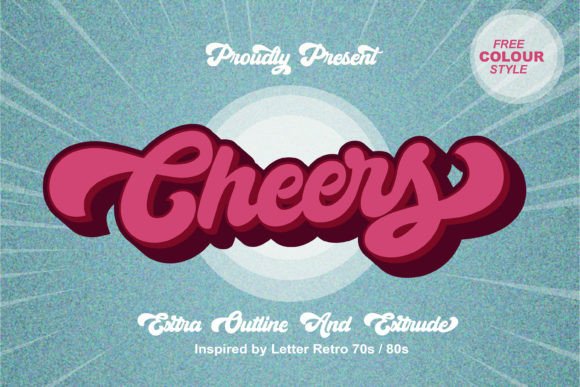
Are you looking for the perfect font to make your holiday letters stand out? Look no further than Cheers Font! Created by the talented artisco99, Cheers is a script font that will take you back to the good old days with its cool retro vibe.
With its bold and funky appearance, Cheers Font is perfect for adding a touch of vintage charm to your designs. Whether you're designing holiday cards, posters, or even t-shirts, Cheers Font will give your project that extra edge that sets it apart from the rest.
But what really sets Cheers Font apart is its PUA encoding. This means that all the glyphs and ligatures are easily accessible, making it incredibly easy to use. No more struggling to find the perfect character or symbol – Cheers Font has got you covered.